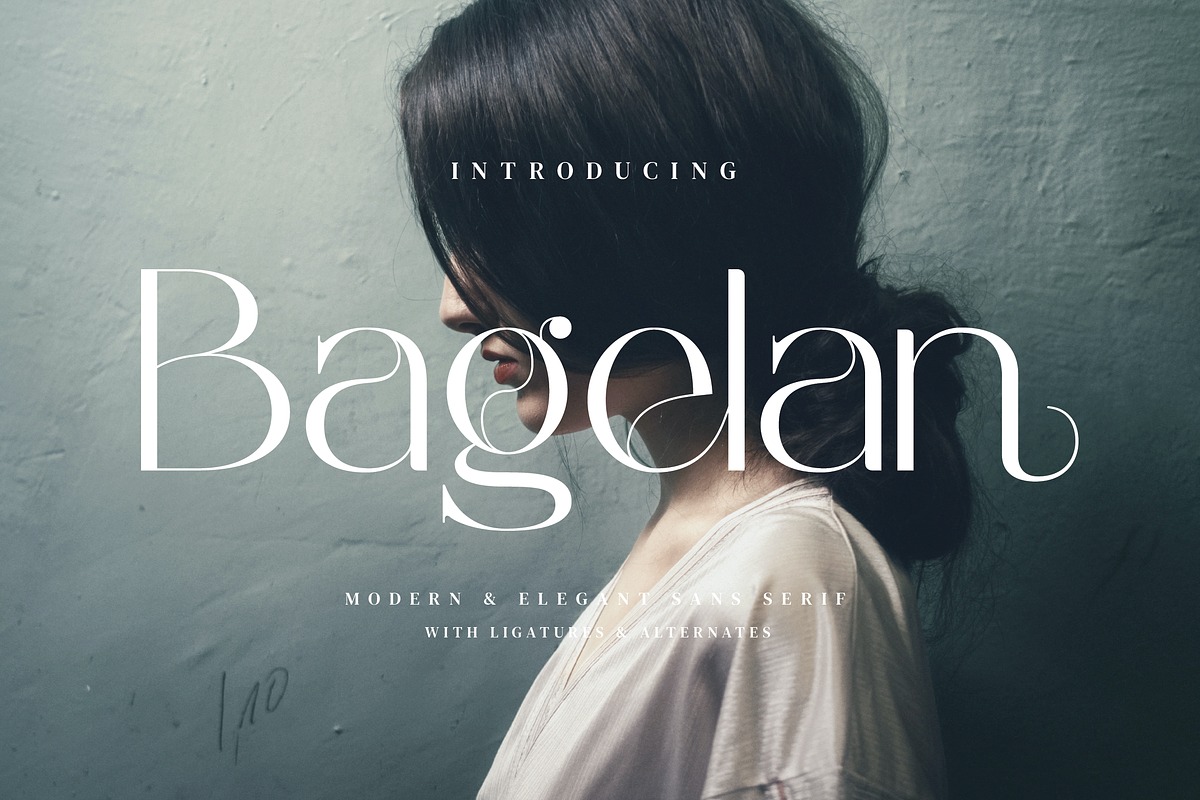
Bagelan Font
Bagelan Font is a premium-quality font developed to enhance your work with a polished, modern, and visually elevated look. Bagelan Sans Font Typeface inspired by the famous minimalist logo perfect for the purposes of designing templates, brochures, videos, advertising branding, logos, invitation, layout design, elegant crafting, beauty design and other.